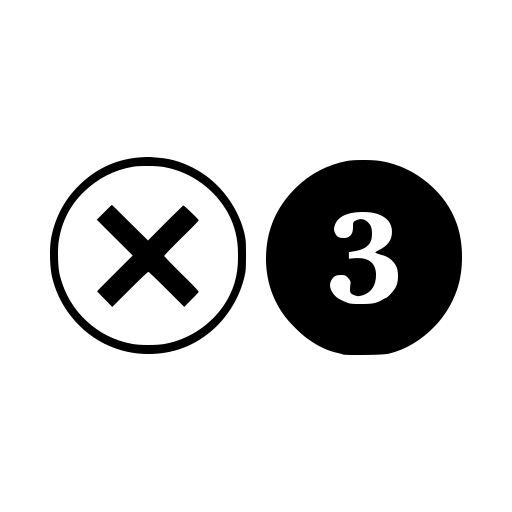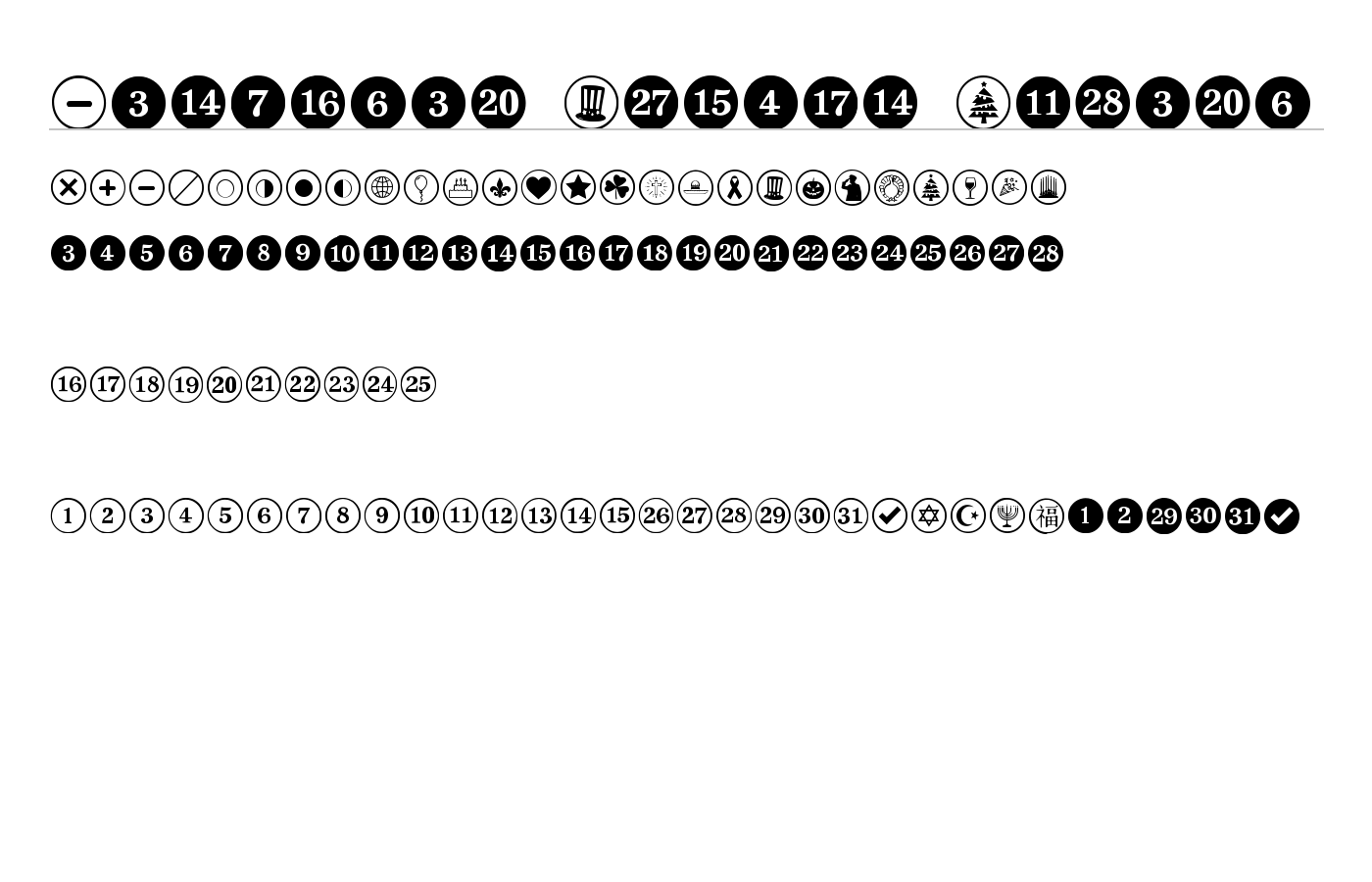
Calendar Symbol Wizard is a creative symbol font featuring a mix of clean, circular number forms and a variety of small, detailed icons representing holidays, events, and rituals. Its design balances simplicity with decorative flair, making it ideal for calendar layouts, planners, and event-related graphics where clear date marking and symbolic representation are needed. This font works best in user-friendly interfaces or printed materials that benefit from easy-to-recognize visual cues and festive accents.
Calendar Symbol Wizard Font